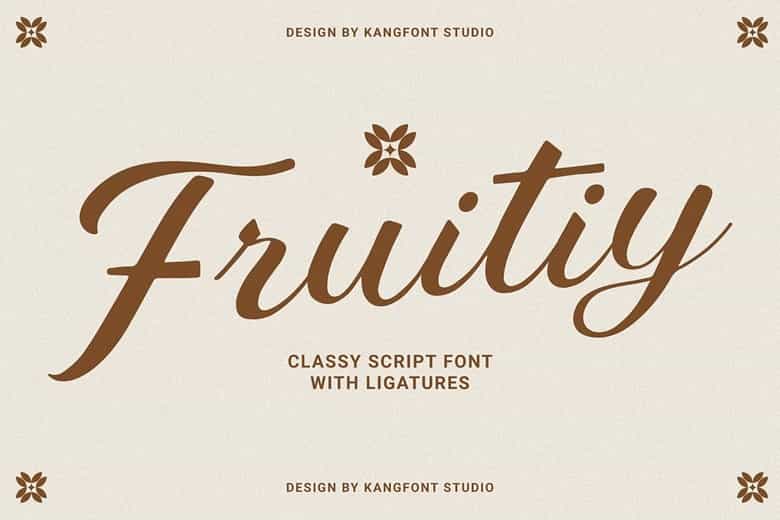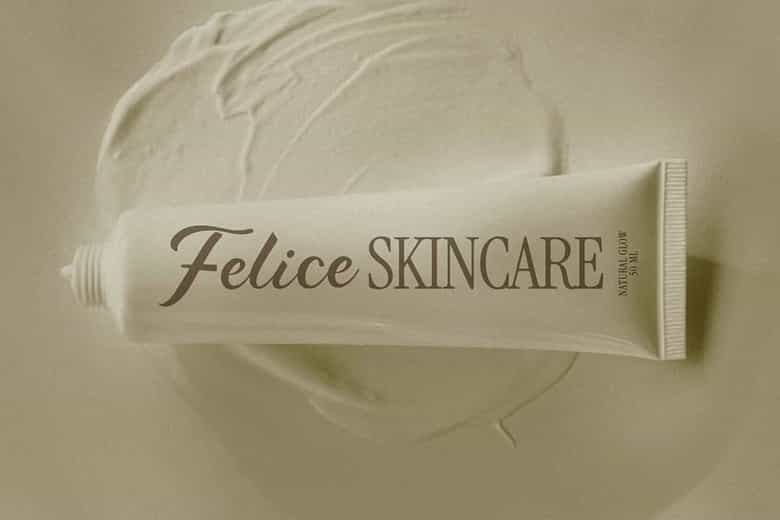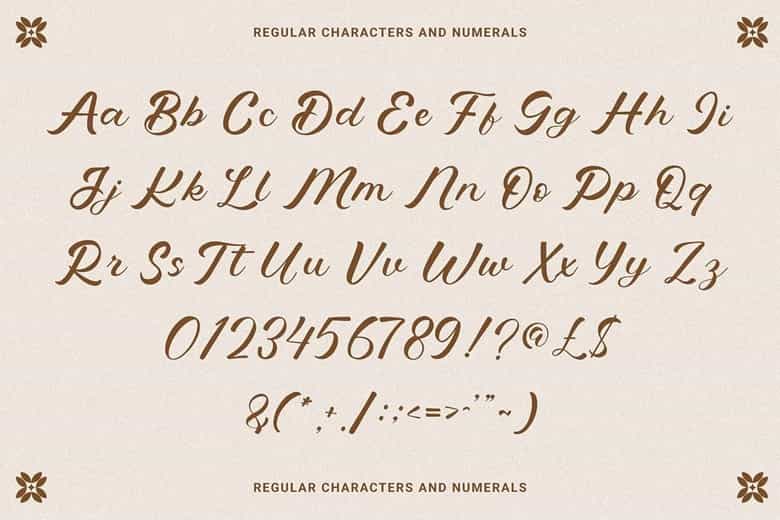
Fruity is an elegant and graceful script calligraphy font with fine details and the inclusion of ligatures to give that extra level of visual refinement. Thanks to its soft rounded shapes and harmonious lines this font may be used for a variety of purposes, including invitation design, logo creation, branding, and other text elements that convey the idea of the delicate and business-like style.